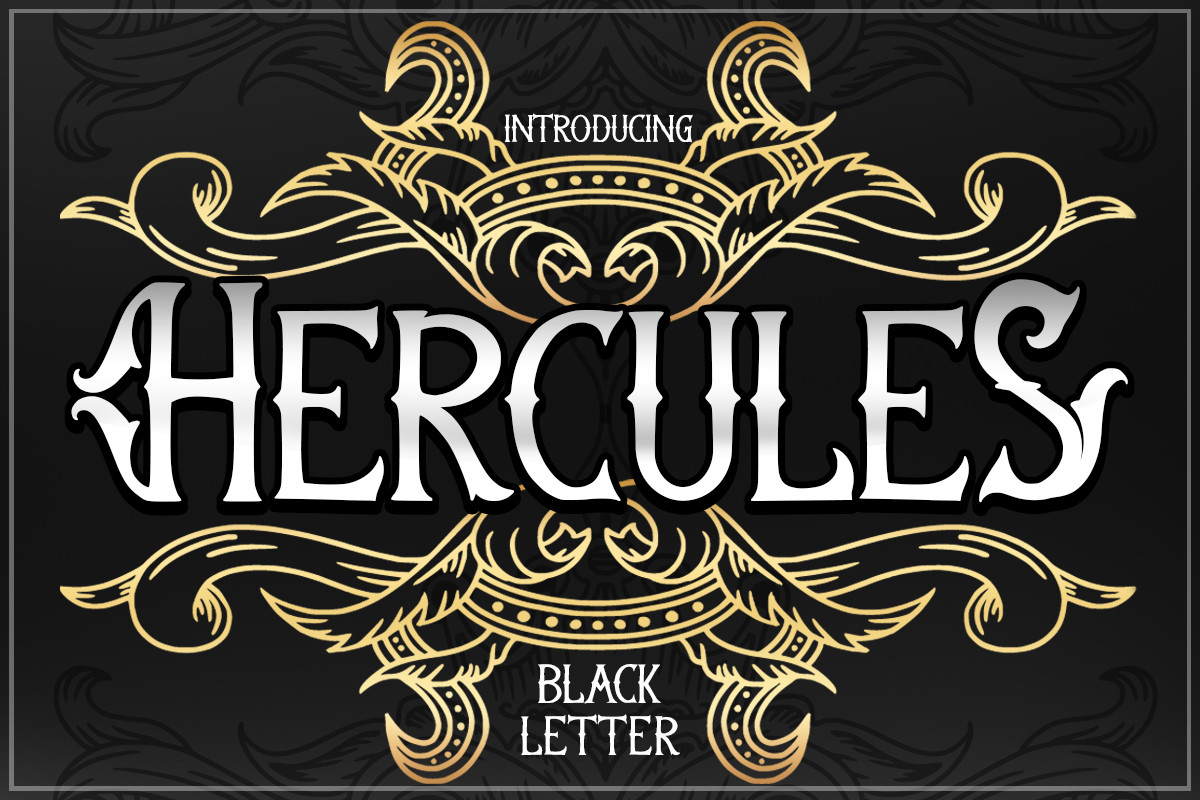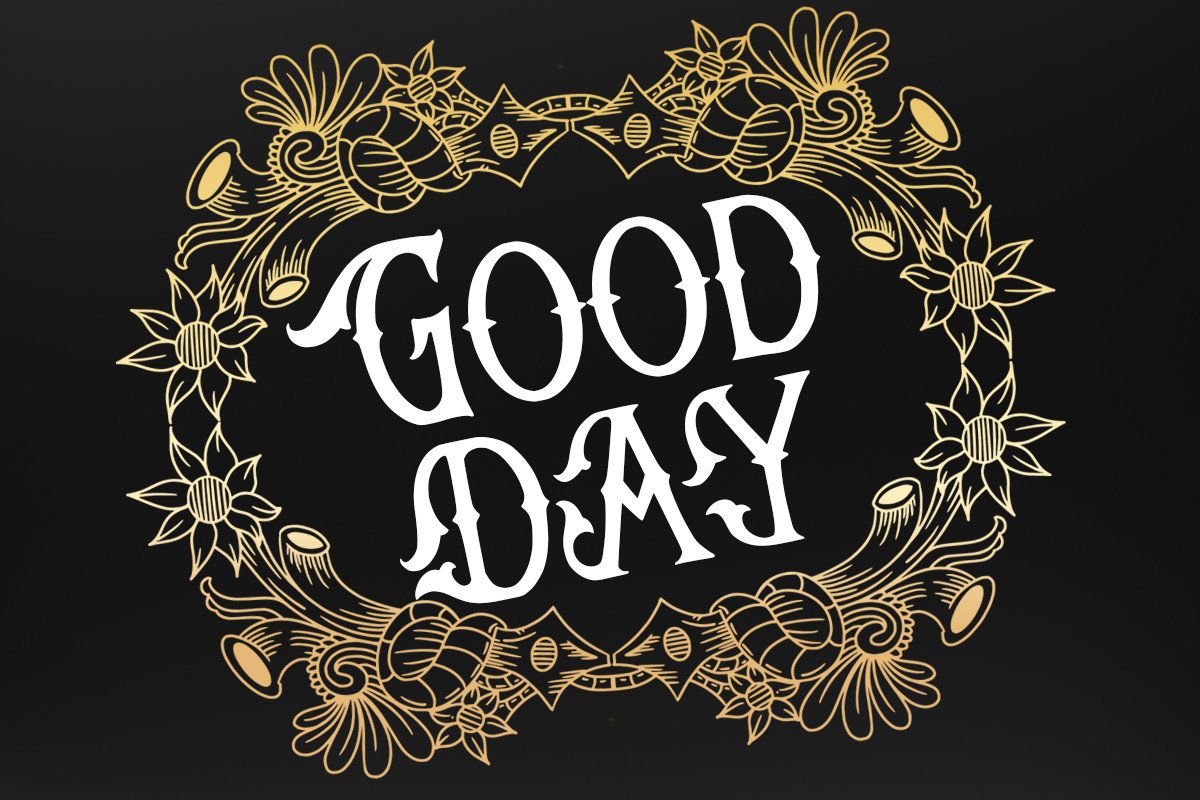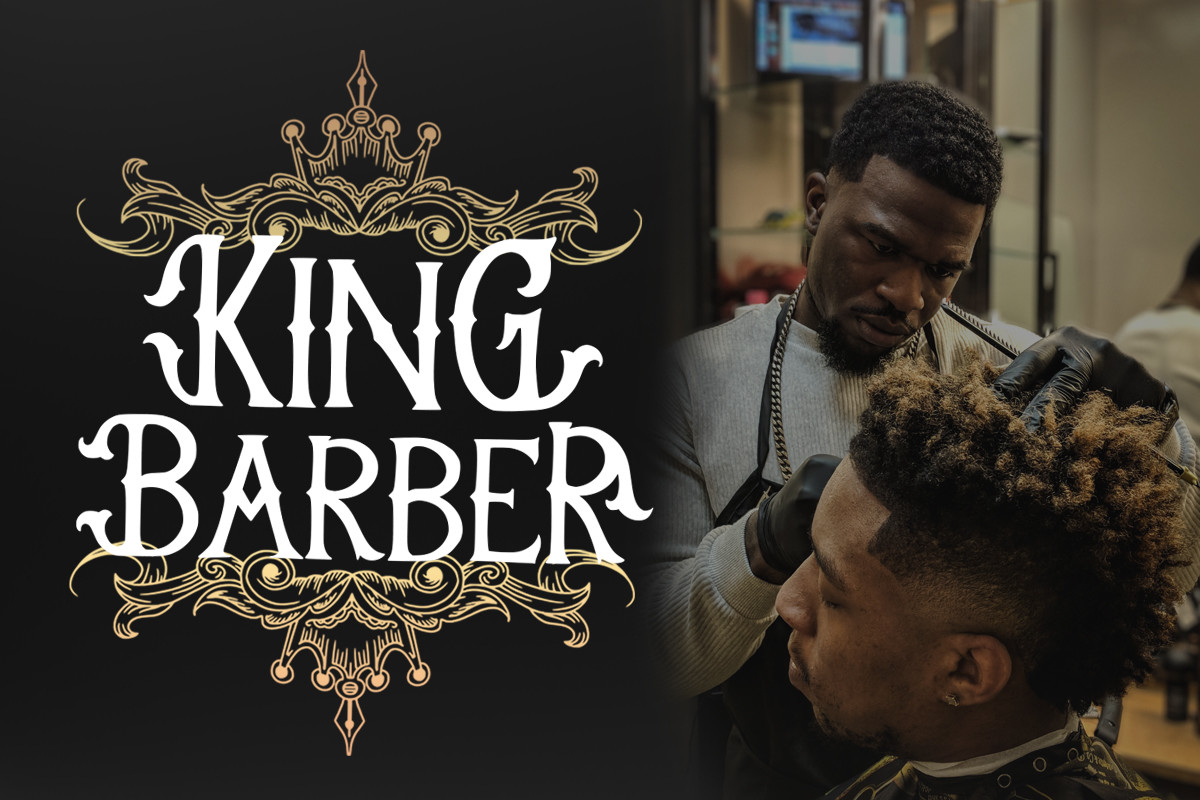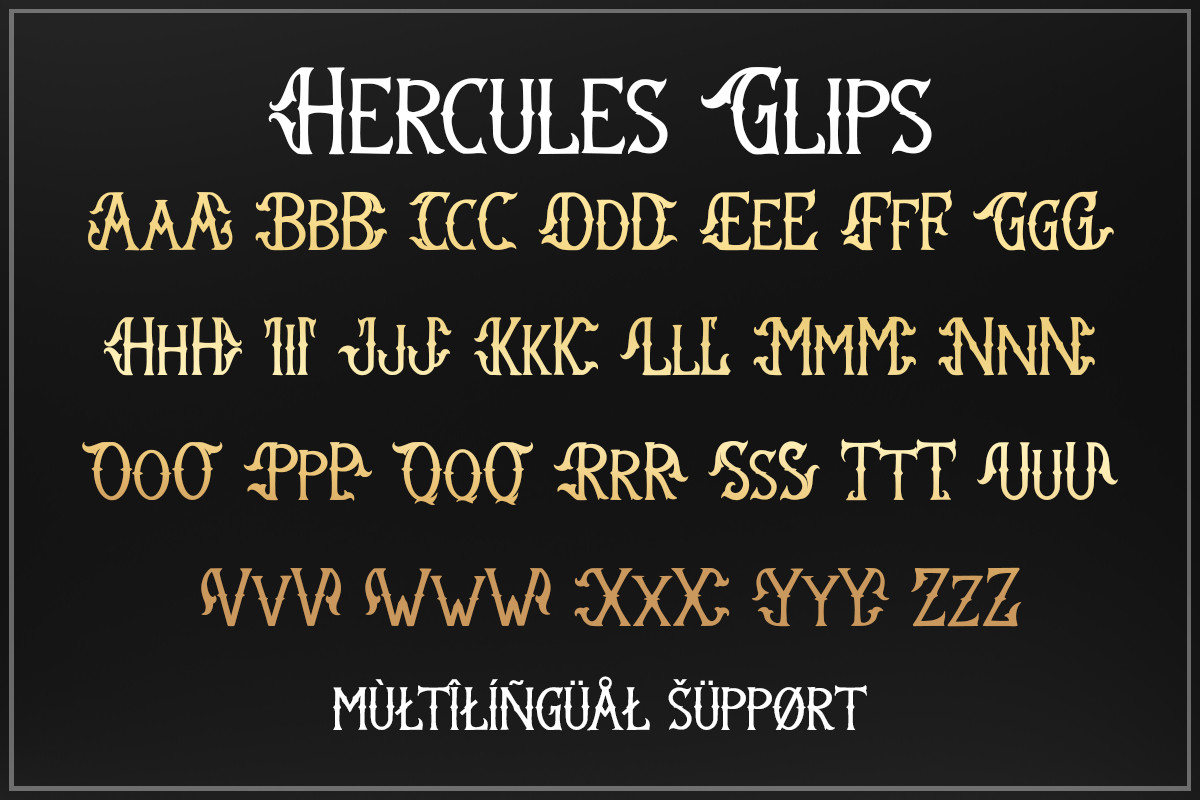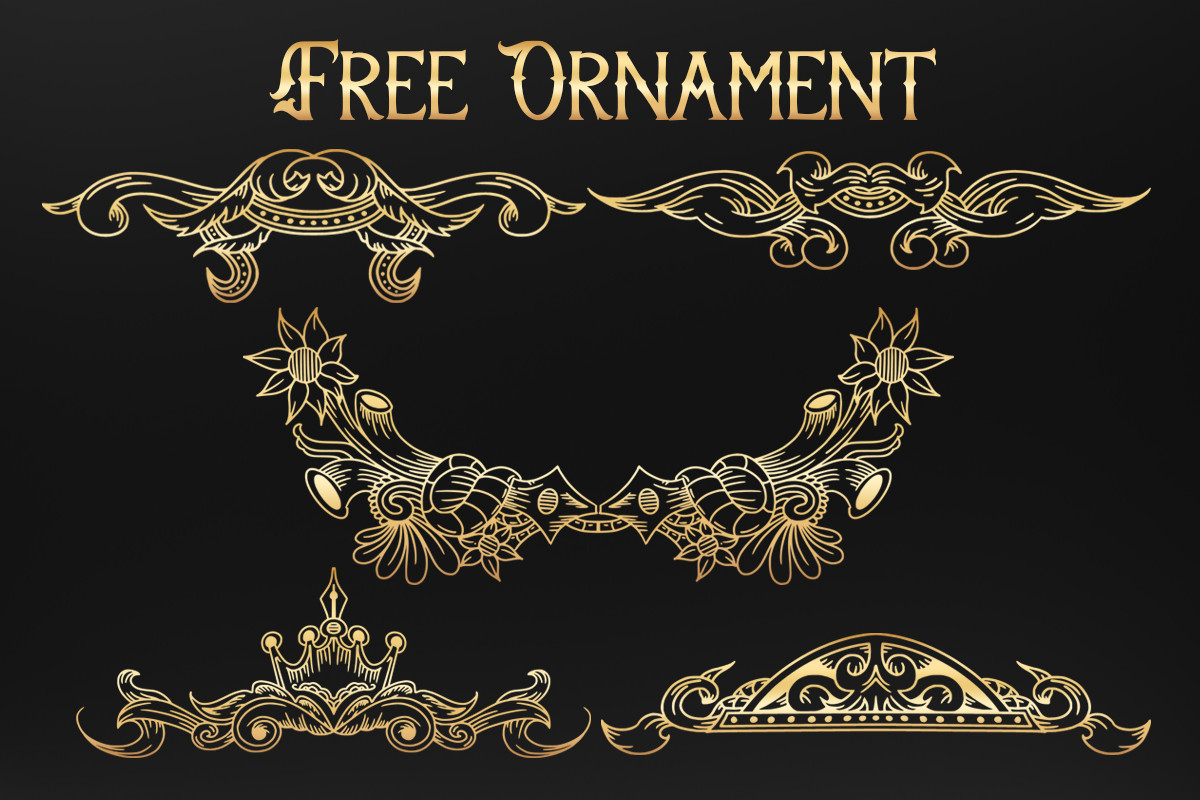
Hercules Font
About Hercules Font
Hercules is a bold and distinct blackletter font. Add this assertive font to your favorite creations and notice how easily they stand out. This font is PUA encoded which means you can access all of the amazing glyphs and ligatures with ease!